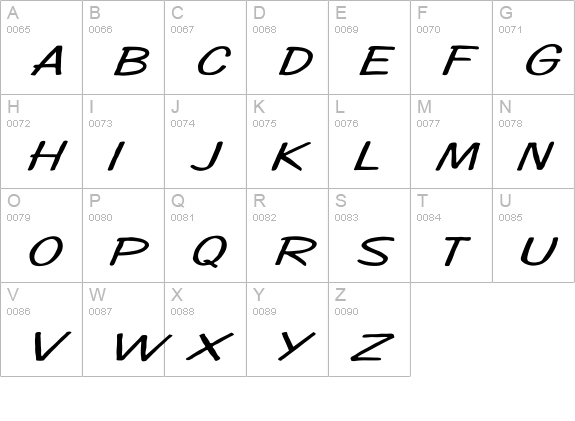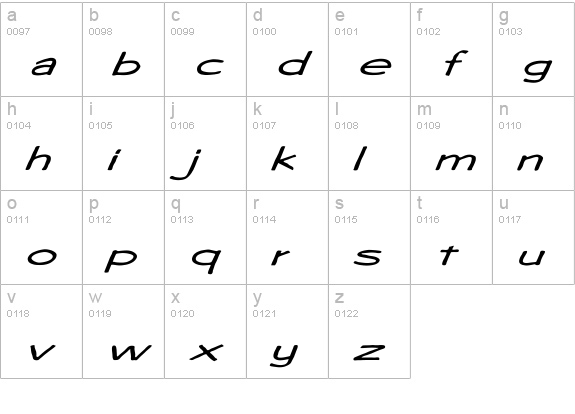
Diego1 Ex Italic is a distinctive, italic variant in the Diego1 typeface family \xE2\x80\x94 well suited to design and typography projects.
Diego1 Ex Italic is a stylish and modern typeface that exudes elegance and sophistication. With its sleek design and graceful curves, this font is perfect for adding a touch of class to any project. The italic style of Diego1 Ex adds a touch of flair and personality, making it a versatile choice for a wide range of design applications. Best of all, Diego1 Ex Italic is available for free download at FontsMarket.com. This means that you can easily access this stunning font and incorporate it into your projects without any cost. Don't miss out on the opportunity to enhance your designs with the beauty and charm of Diego1 Ex Italic - download it for free today!